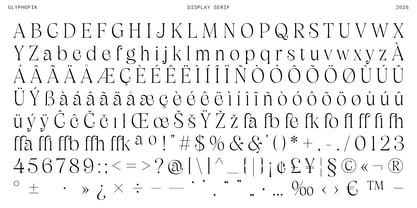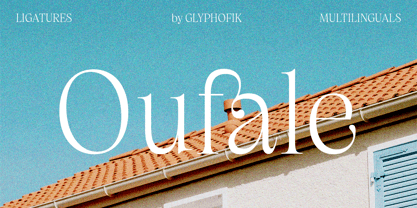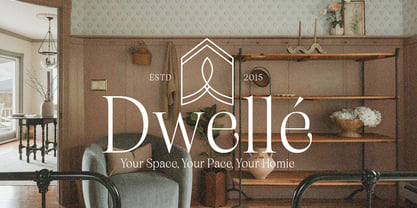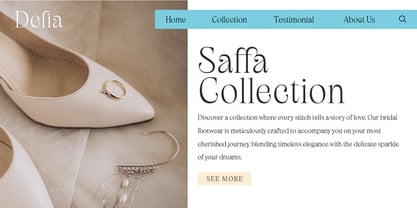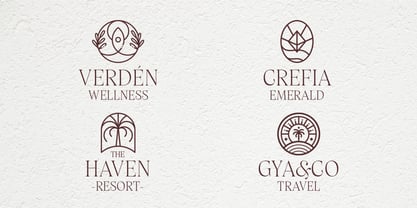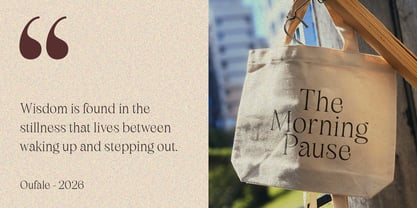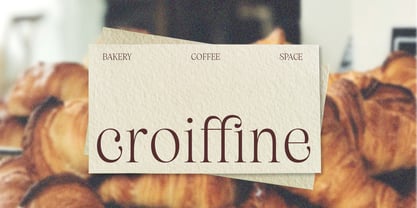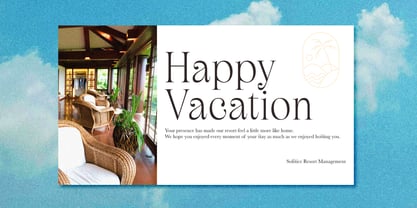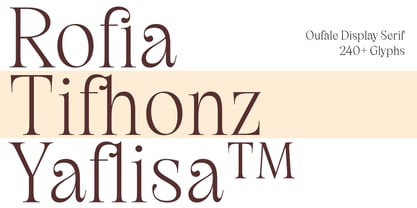
Oufale
by Glyphofik Type
The Oufale Font Family was designed by Mujahid Al Fikri and published by Glyphofik Type. Oufale contains 1 styles. More about this family
Oufale is a high-contrast feminine display thin serif with a large x-height — drawn from the tradition of classic elegance and refined for the contemporary eye. Whether shaping a headline, defining a logo or wordmark, or lending gravitas to a short quote, Oufale brings a rare quality to the page: the kind of beauty that feels both intentional and inevitable.
Glyphofik Type, founded by Mujahid Al Fikri, serves as a type foundry in West Java, Indonesia. Our venture into letterforms is driven by the aspiration to offer a diverse font collection tailored to the demands of different industries, with a special focus on the creative sector. Embracing the fusion of visual analysis and numerical precision defines our distinctive approach to crafting fonts, where aesthetics and functionality harmoniously coexist.